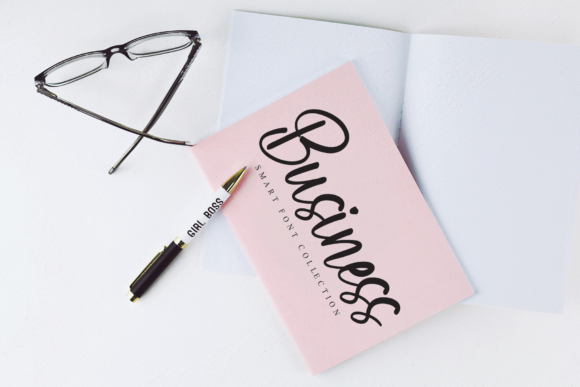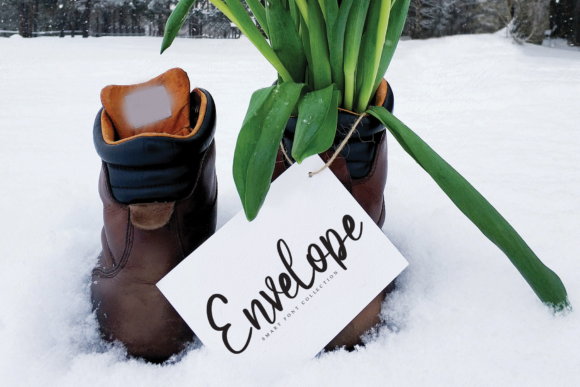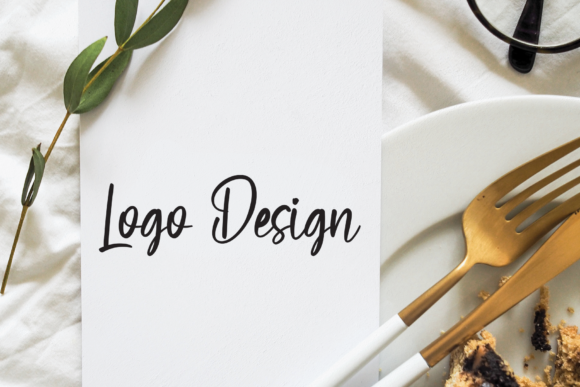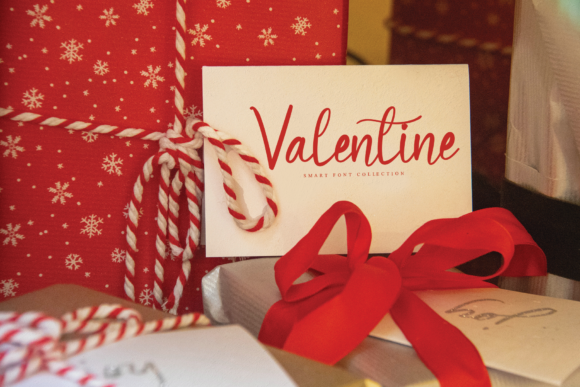
Introducing Butterice Font: The Epitome of Elegance and Versatility
Are you a designer or crafter on the lookout for a font that can elevate your creative projects to new heights? Look no further than Butterice Font, a delicate and elegant handwritten font that is sure to capture your heart. With its distinct and well-balanced letters, Butterice is a masterpiece that offers an incredibly versatile style, perfect for creating spectacular designs that showcase your unique vision.
The Beauty of Butterice Font
Butterice Font is a work of art that boasts a level of sophistication and refinement that is hard to find in modern typography. Its elegant strokes and carefully crafted letters make it a joy to use, whether you’re working on a branding project, a wedding invitation, or a craft project. The font’s delicate nature ensures that it remains legible even at smaller sizes, making it perfect for a wide range of applications.
Key Features of Butterice Font
- Delicate and Elegant: Butterice Font features a delicate and elegant design that is sure to add a touch of sophistication to any project.
- Handwritten Style: The font’s handwritten style gives it a personal and unique feel that is perfect for creating bespoke designs.
- Distinct and Well-Balanced Letters: Each letter in the Butterice Font is carefully crafted to ensure that it is distinct and well-balanced, making it easy to read and visually appealing.
- Incredibly Versatile: The font’s versatility makes it perfect for a wide range of projects, from branding and advertising to crafting and DIY projects.
Uses for Butterice Font
Butterice Font is a versatile font that can be used in a variety of creative projects. Here are just a few ideas to get you started:
- Branding and Logo Design: Use Butterice Font to create a unique and memorable logo for your business or brand.
- Wedding Invitations and Stationery: The font’s elegant design makes it perfect for wedding invitations, save-the-date cards, and other stationery.
- Crafting and DIY Projects: Butterice Font is a great choice for crafters and DIY enthusiasts who want to add a personal touch to their projects.
- Advertising and Marketing: The font’s versatility makes it perfect for use in advertising and marketing materials, such as brochures, flyers, and posters.
Tips for Using Butterice Font
To get the most out of Butterice Font, here are a few tips to keep in mind:
- Use it with a Simple Background: Butterice Font is a delicate font that can get lost in busy backgrounds. Use it with a simple background to make it stand out.
- Experiment with Colors: The font’s versatility makes it perfect for use with a wide range of colors. Experiment with different colors to find the one that works best for your project.
- Don’t be Afraid to Mix and Match: Butterice Font can be paired with other fonts to create a unique and interesting design. Don’t be afraid to experiment with different font combinations.
In conclusion, Butterice Font is a delicate and elegant handwritten font that is sure to capture your heart. With its distinct and well-balanced letters, incredibly versatile style, and wide range of uses, it’s the perfect choice for designers and crafters who want to create spectacular designs. Whether you’re working on a branding project, a wedding invitation, or a craft project, Butterice Font is sure to elevate your creative vision to new heights.